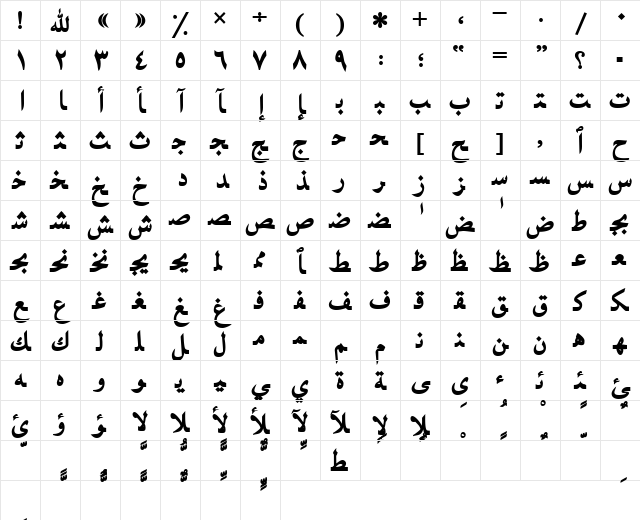
ArabicNaskhSSK Bold
Design Context for ArabicNaskhSSK
ArabicNaskhSSK is a composed and adaptable typeface that performs quietly and consistently across a wide range of design contexts. Its bold stroke weight gives it real presence on the page.